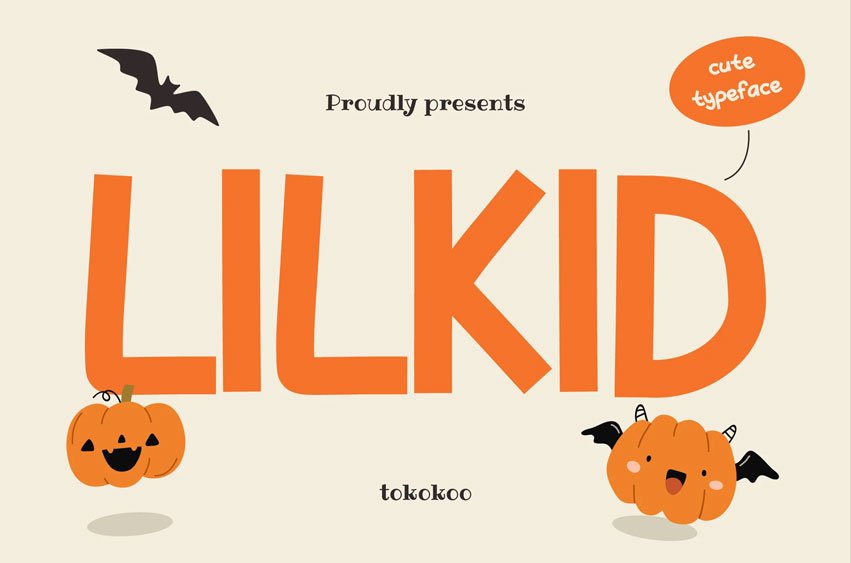
Lilkid Font is a playful display font that mixes kid-friendly fun with a light spooky twist. Its rounded corners, chunky proportions, and bouncy baseline give every word a joyful rhythm, perfect for projects that need warmth and excitement. The letters feel hand-drawn yet balanced, making it easy to read while keeping a delightful, expressive tone.
Ideal for Halloween posters, children’s book covers, or toy packaging, LILKID brings a sense of friendly mischief wherever it appears. The typeface balances soft geometric curves with bold shapes that instantly attract young eyes and curious minds.
From spooky social media posts to adorable kids branding, LILKID adapts beautifully to playful contexts. Designers love its versatility for app UIs, educational materials, party invitations, and seasonal campaigns. It creates headlines that sparkle with positivity and characters that dance across layouts — giving every design a cheerful heartbeat.
Key Features :
- Expressive & Rounded: Smooth, joyful curves create a warm and energetic visual flow.
- Friendly Readability: Each letter is clear and inviting, perfect for young audiences.
- Seasonal Versatility: Works great for Halloween themes yet stays useful all year.
- Attention-Grabbing: Perfect for posters, packaging, and social media visuals.
- Playful Spirit: Evokes creativity and fun in every project.